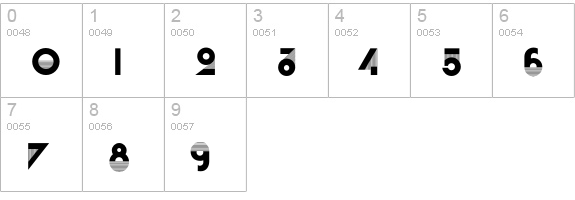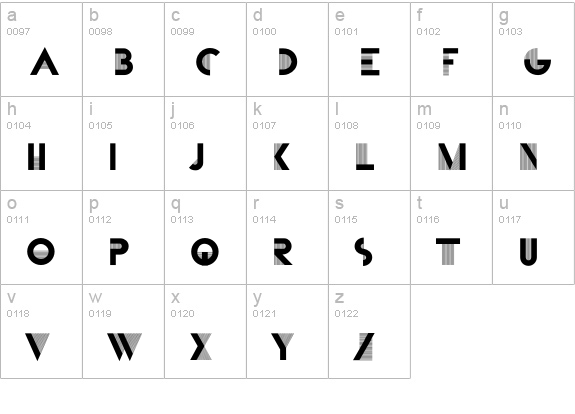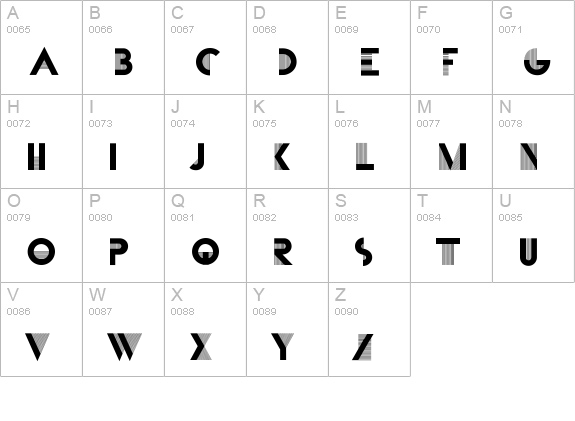
CassandreEF-Initials is a stunning and elegant font that exudes sophistication and charm. With its intricate and ornate design, this font is perfect for adding a touch of luxury to any project. The intricate detailing of the initials in this font makes it a standout choice for branding, invitations, and other design projects where a touch of elegance is desired. Best of all, CassandreEF-Initials is available for free download at FontsMarket.com. This means that you can easily add this beautiful font to your collection without having to spend a dime. Don't miss out on the opportunity to enhance your designs with this exquisite and stylish font. Download CassandreEF-Initials today and add a touch of sophistication to your projects.